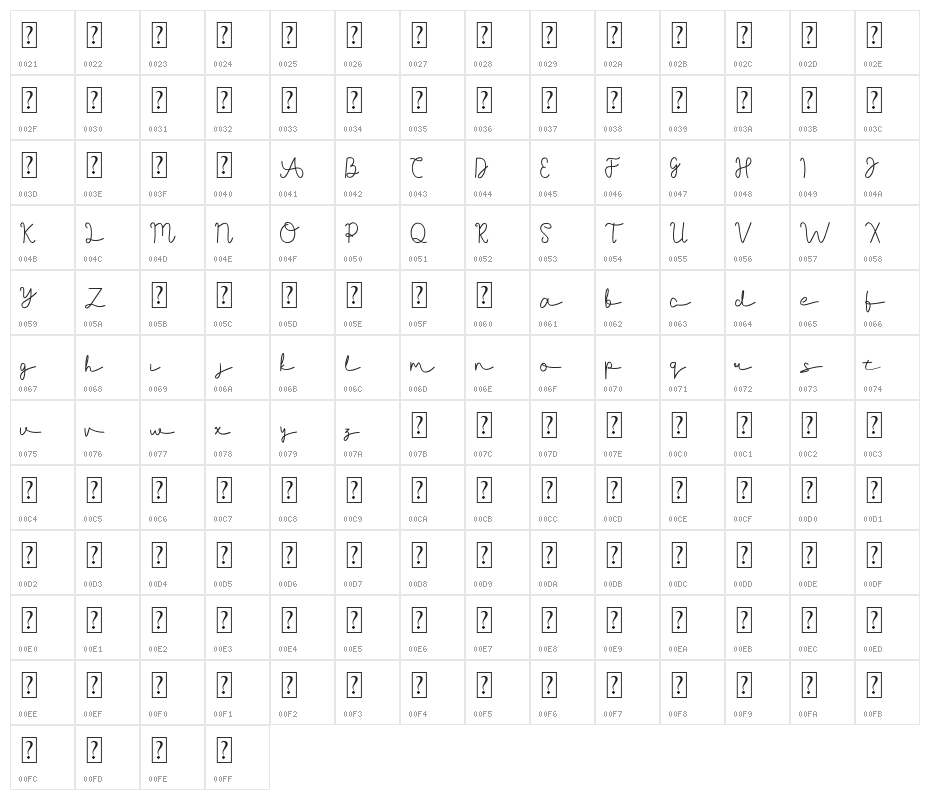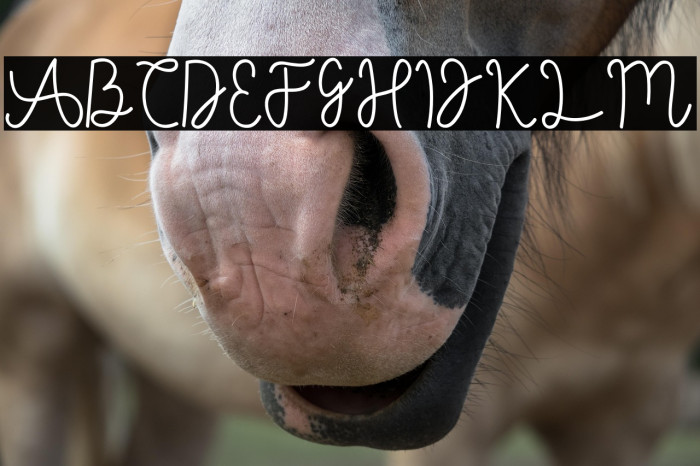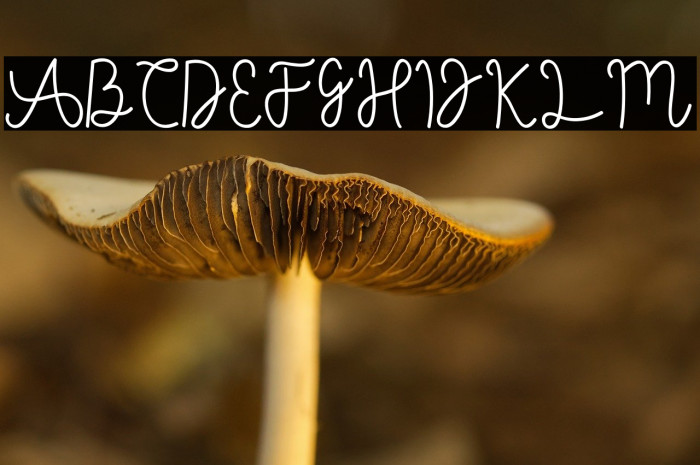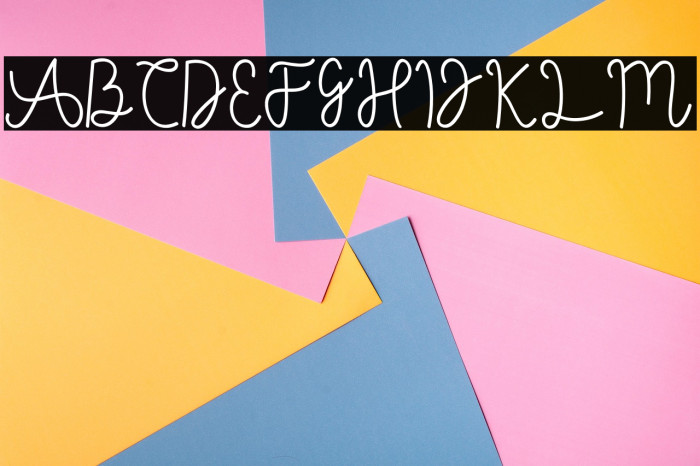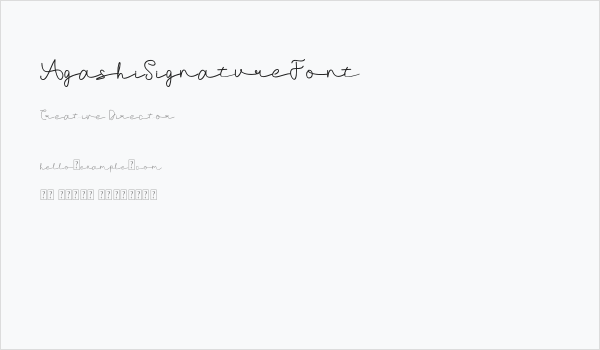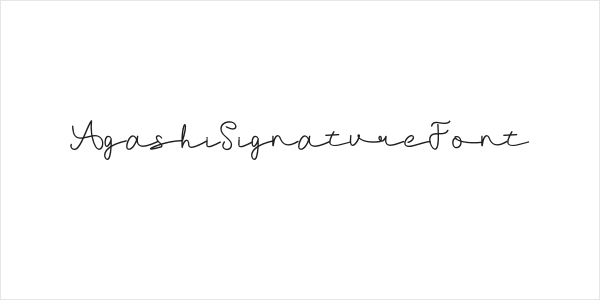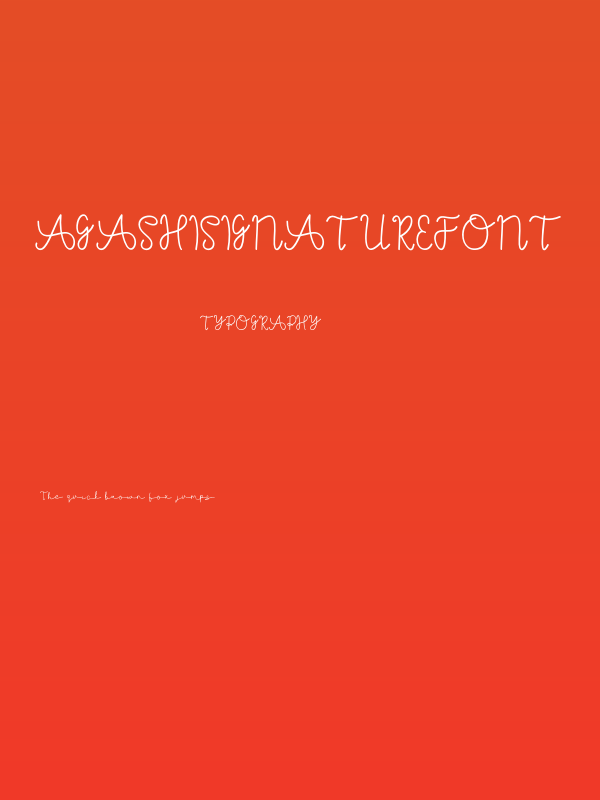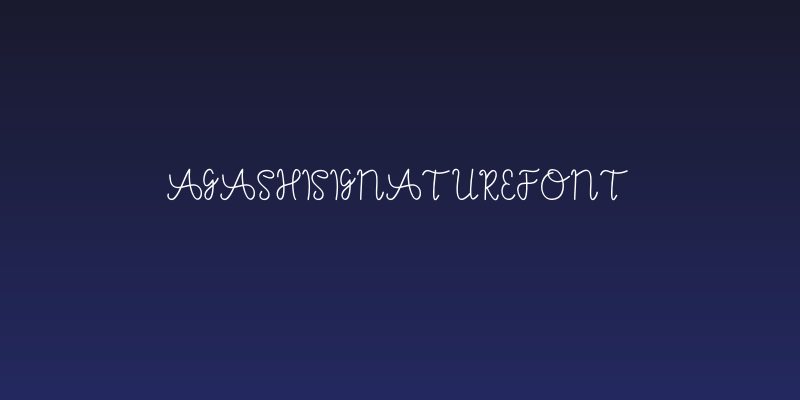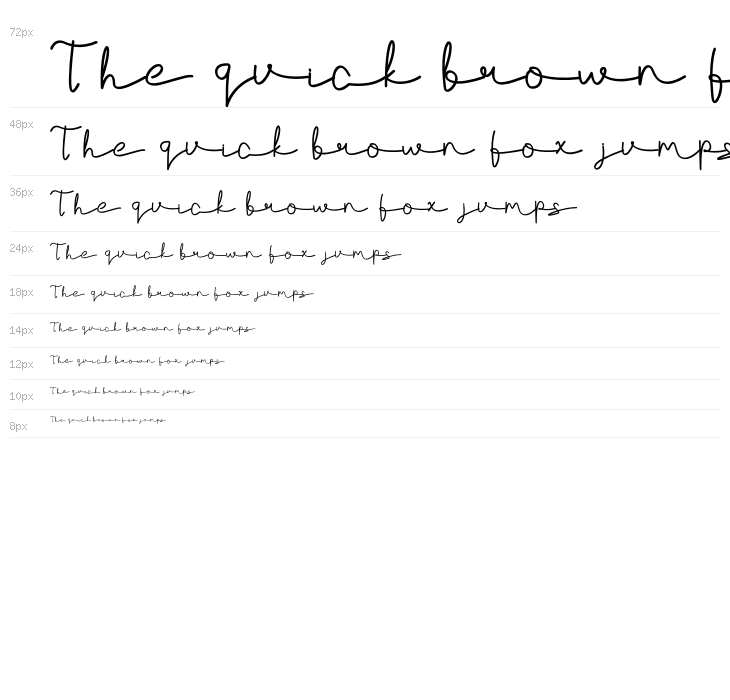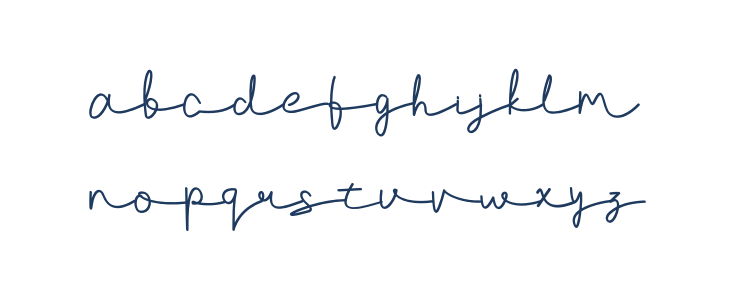
AgashiSignatureFont Font
AgashiSignatureFont Description
This elegant script font features a fluid, handwritten style with smooth, flowing lines that mimic the natural motion of cursive writing. The uppercase letters are distinctively crafted with a slight slant, giving them a graceful appearance. Lowercase letters are connected, enhancing the script's continuity and readability. The font maintains a consistent stroke width, providing a balanced and harmonious look. Its sophisticated design is ideal for projects that require a personal touch, such as invitations, greeting cards, or branding materials. The font's overall aesthetic is both modern and timeless, making it versatile for various design applications.